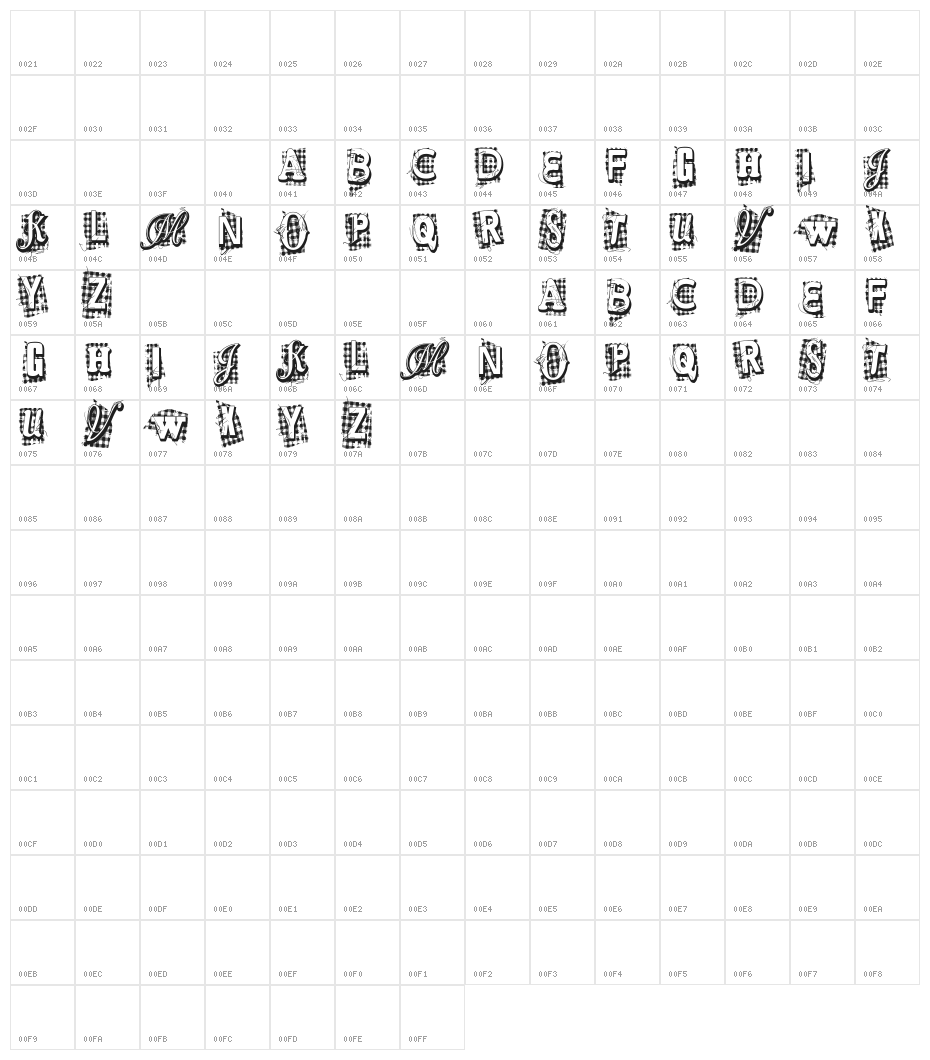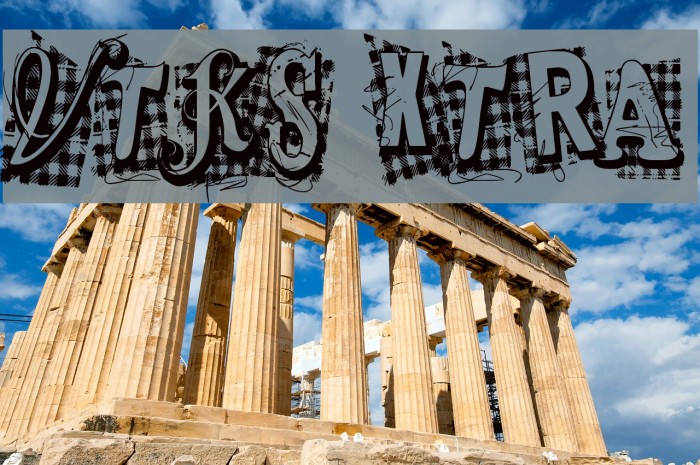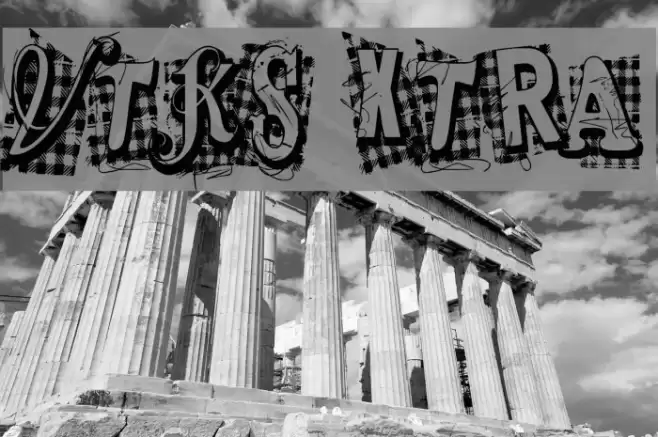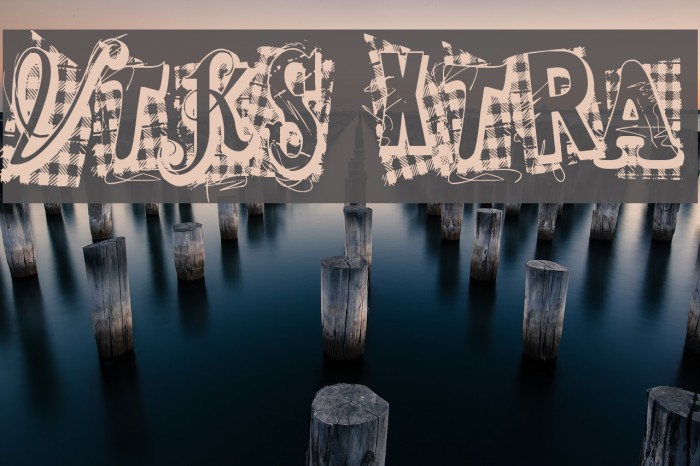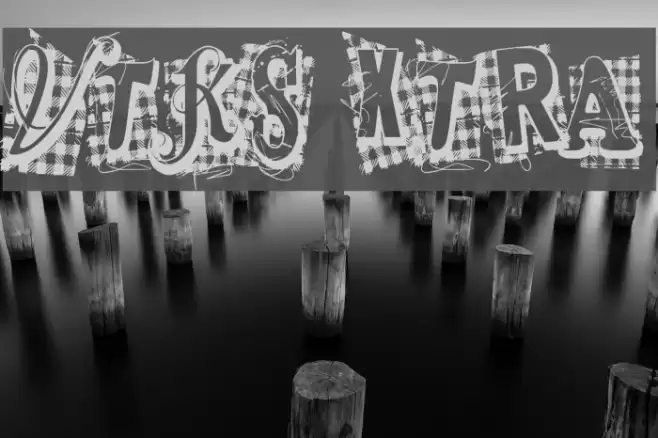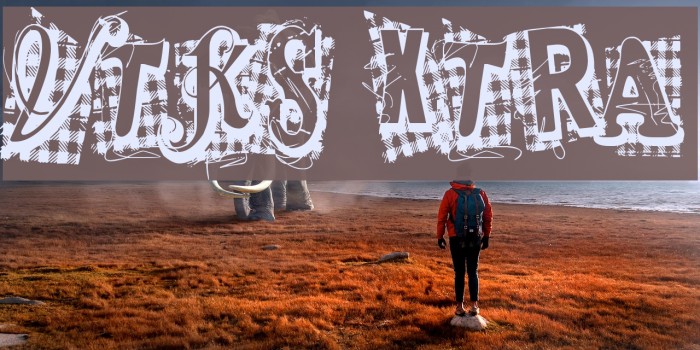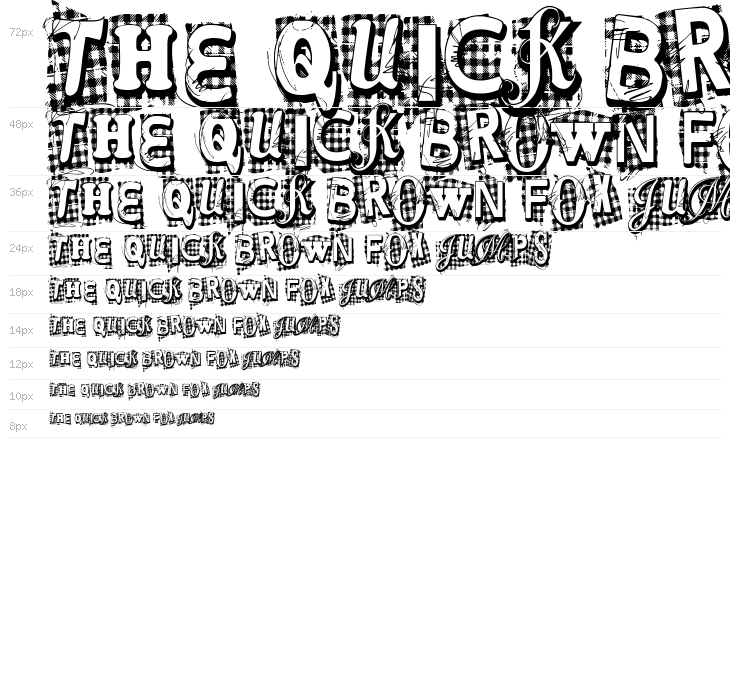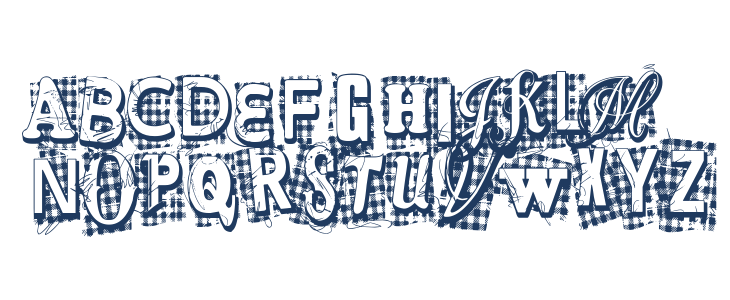
VTKS Xtra Font
VTKS Xtra Description
This font features a bold and decorative style with a unique blend of patterns and textures. Each character is filled with intricate designs, including plaid patterns and swirling embellishments, giving it a dynamic and eye-catching appearance. The uppercase letters are particularly elaborate, with some incorporating script-like elements that add a touch of elegance. The overall design is playful yet sophisticated, making it suitable for creative and artistic projects. The font's distinctive style ensures that it stands out, making it ideal for use in designs that require a strong visual impact.
| Proposed Projects | Ideal for posters, album covers, event invitations, and branding that requires a bold and artistic touch. |